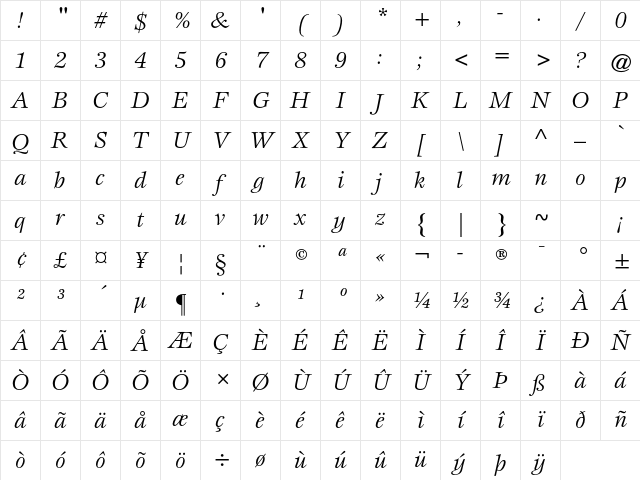
ITC Esprit Std Book Italic
Style: Book Italic
Designer: Jovica Veljovic
Complete ITC Esprit Std Book Italic glyph index. Displaying only characters natively supported by ITC Esprit Std Book Italic font.
Design Context for ITC Esprit Std
ITC Esprit Std is a composed and adaptable typeface that performs quietly and consistently across a wide range of design contexts. The slanted form adds forward momentum and visual energy.